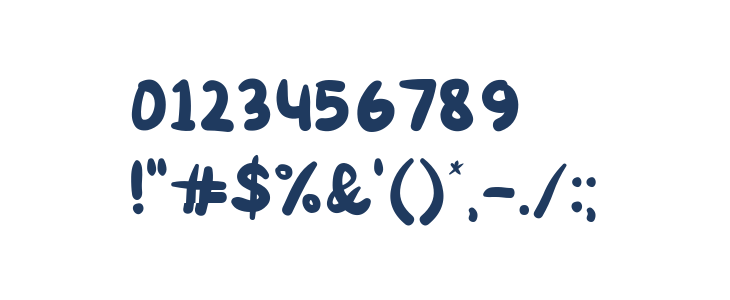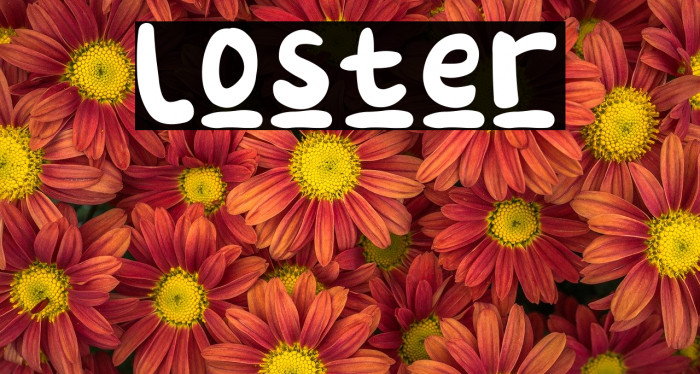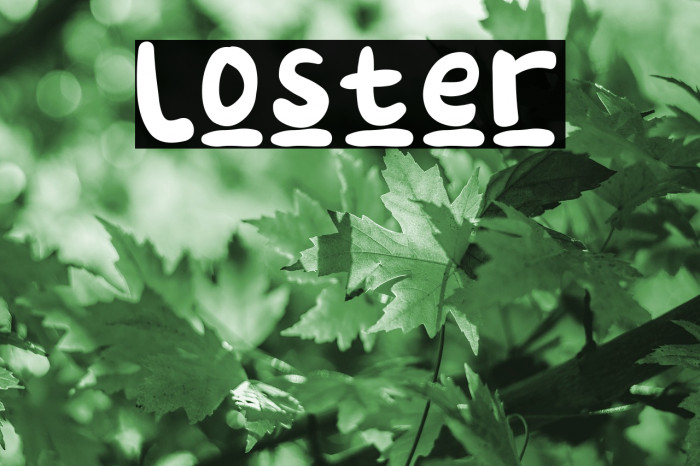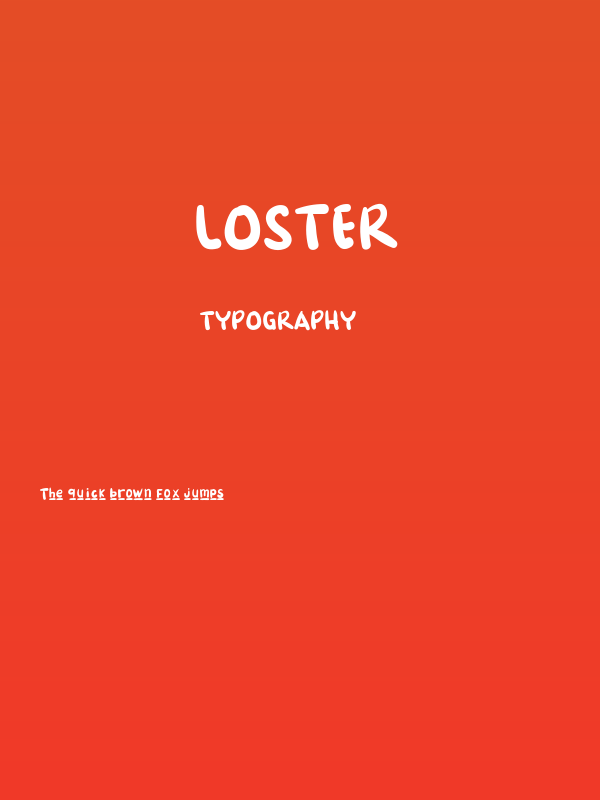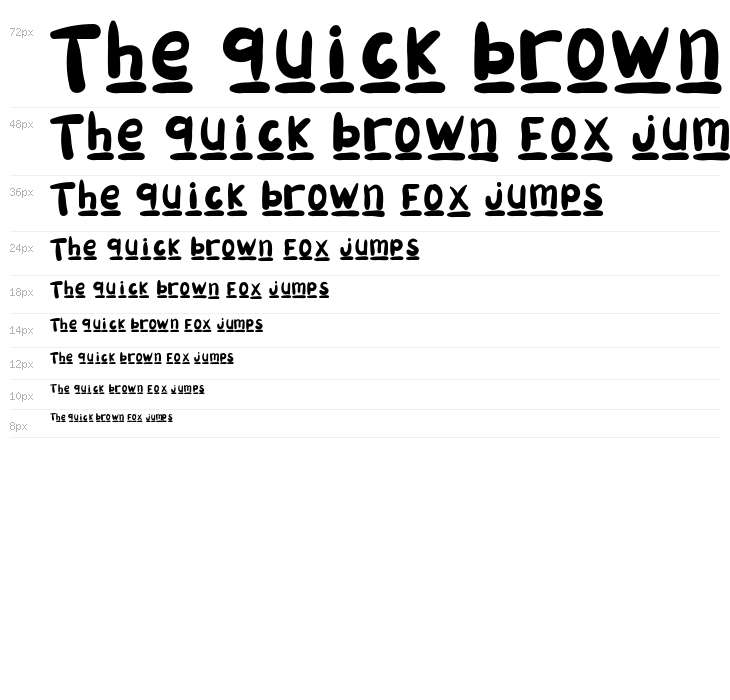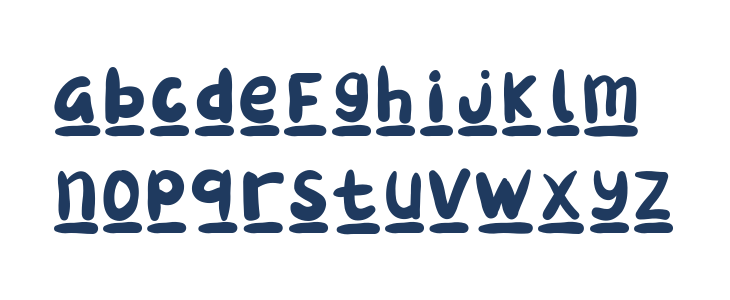
Loster Font
Loster Description
This font features a playful and bold style with rounded edges and a hand-drawn appearance. The characters are thick and have a consistent weight throughout, giving them a strong presence on the page. The uppercase and lowercase letters maintain a uniform height, contributing to a cohesive look. The numbers and special characters are designed with the same playful aesthetic, making them suitable for creative and informal projects. The overall design is reminiscent of a casual, handwritten style, perfect for adding a touch of personality to any text.
| Overall Style | Playful |
| Use Case | Headlines, Logos, Informal Text |
| Proposed Projects | Ideal for children's books, comic strips, playful branding, and informal invitations. |